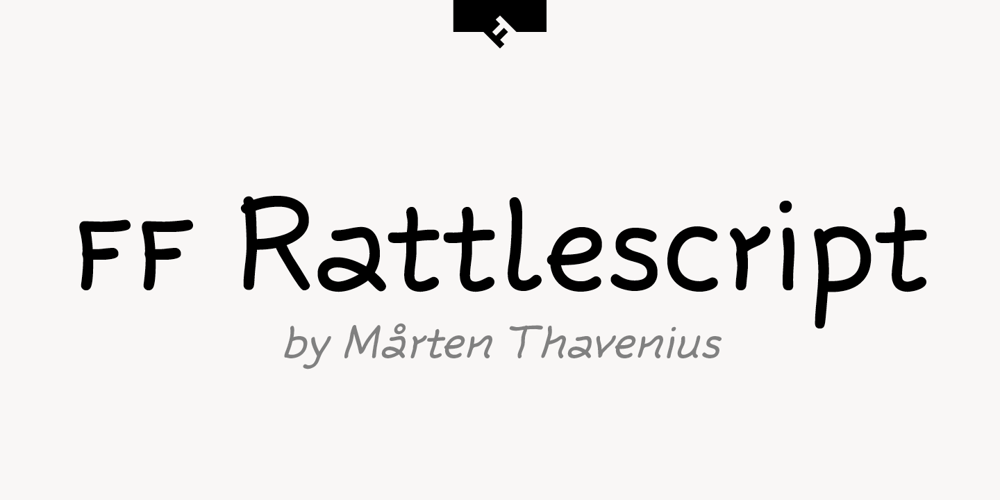
FF Rattlescript Font Family was designed by Mårten Thavenius and published by FontFont. FF Rattlescript contains 8 styles and family package options. Swedish type designer Mårten Thavenius created this script FontFont in 2000. The family has 8 weights, ranging from Light to Bold (including italics) and is ideally suited for advertising and packaging, festive occasions, film and tv, poster and billboards as well as software and gaming. FF Rattlescript provides advanced typographical support with features such as ligatures, small capitals, and case-sensitive forms. It comes with proportional oldstyle and tabular lining figures.